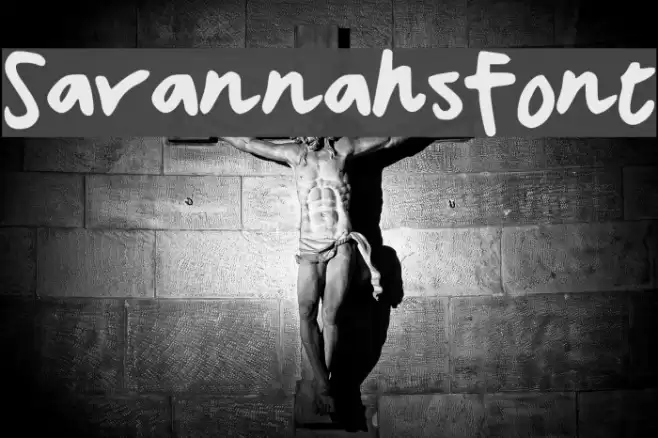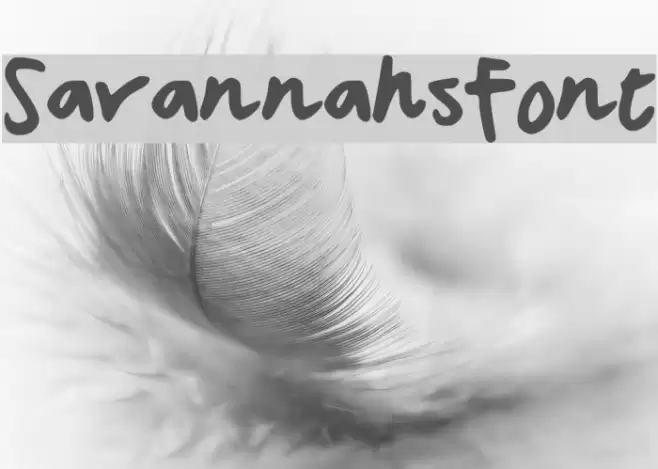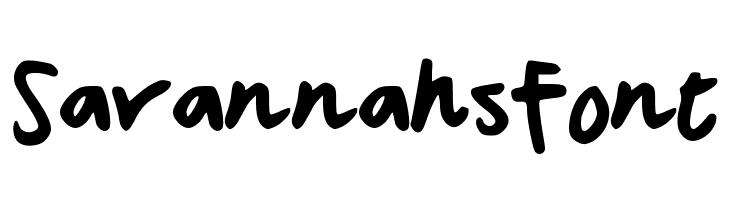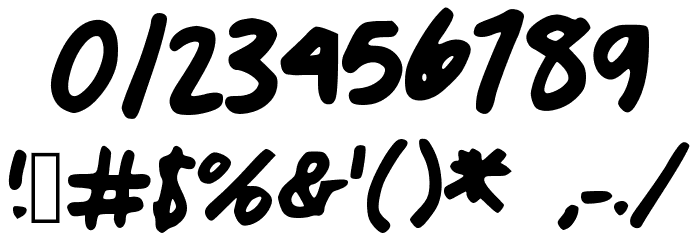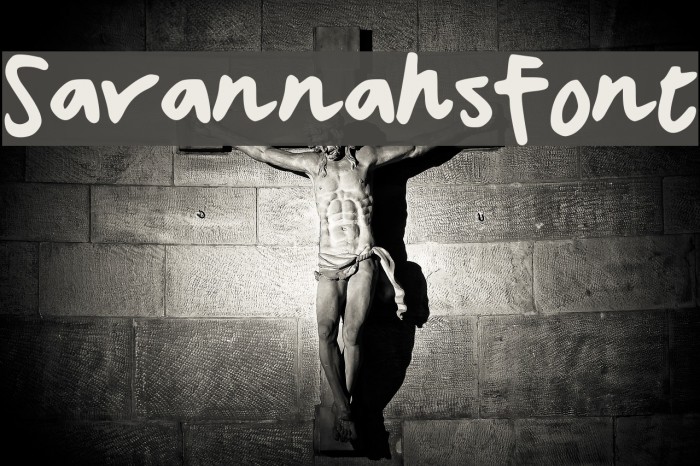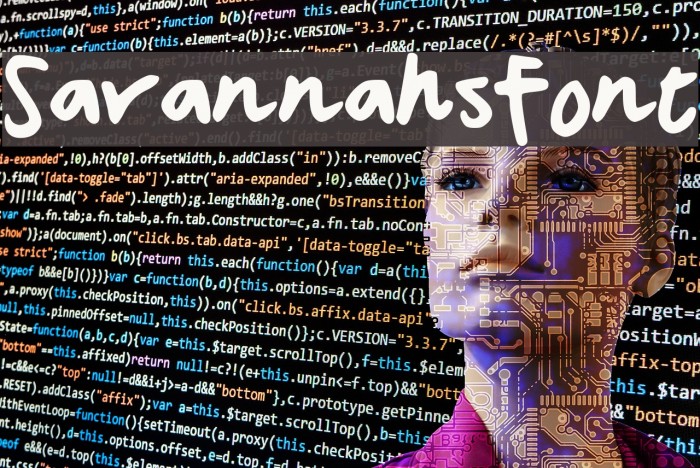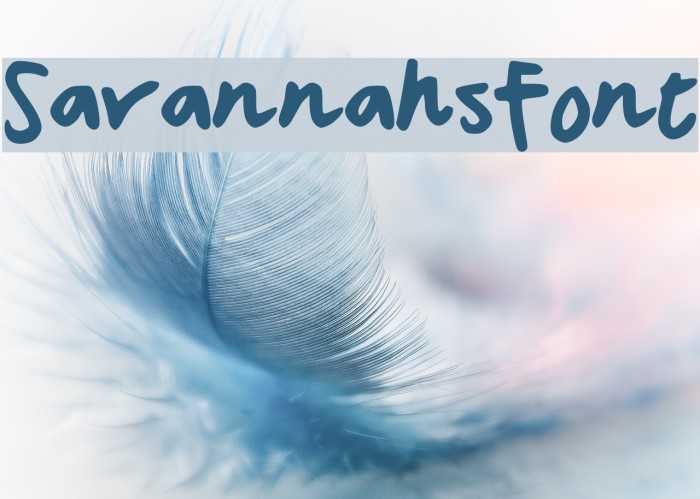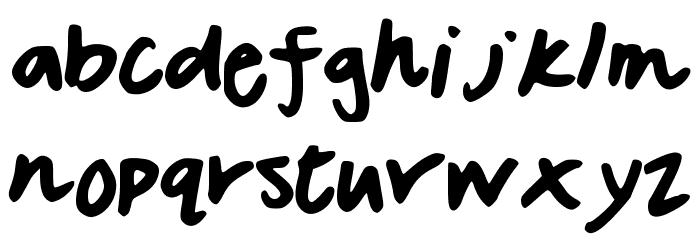
SavannahsFont Font
SavannahsFont Description
This font features a playful and energetic handwritten style, characterized by its bold and slightly irregular strokes. The letters have a casual, informal appearance, with a dynamic flow that suggests movement and spontaneity. The uppercase and lowercase letters maintain a consistent style, with rounded edges and a slightly slanted orientation. The numbers and special characters are equally expressive, adding to the font's overall lively and approachable feel. This font is ideal for projects that require a personal touch or a sense of whimsy.
A bold, playful handwritten font with a lively and informal style from Handwritten fonts.
- Proposed Projects: Great for greeting cards, children's books, playful branding, and social media graphics.
- Overall Style: Playful
- Use Case: Logos, Headlines, Informal text